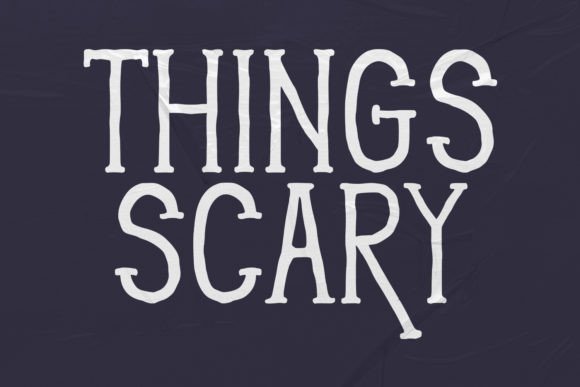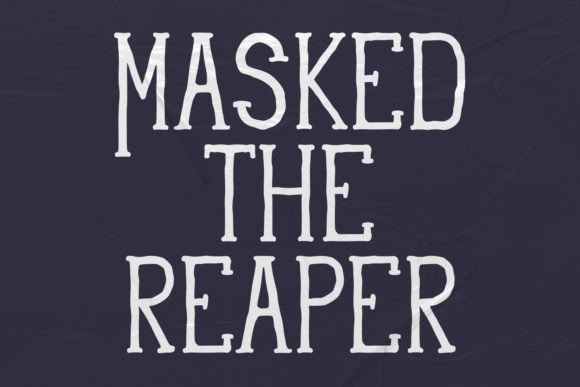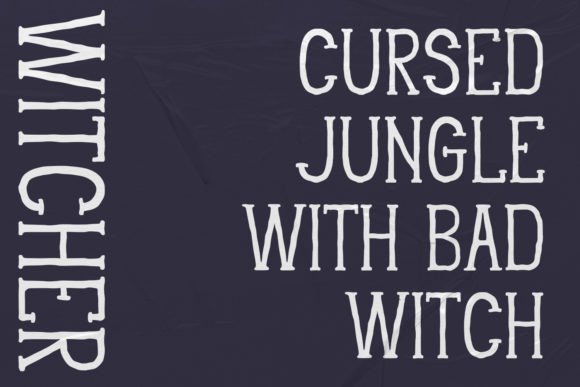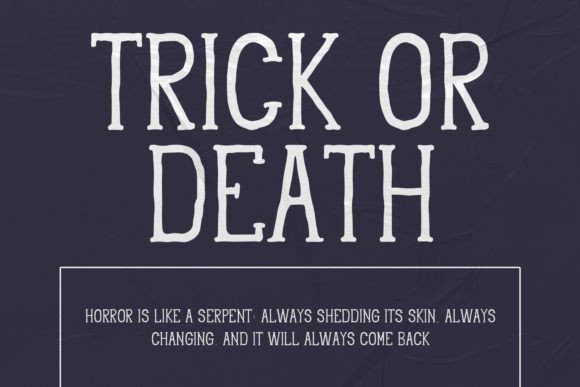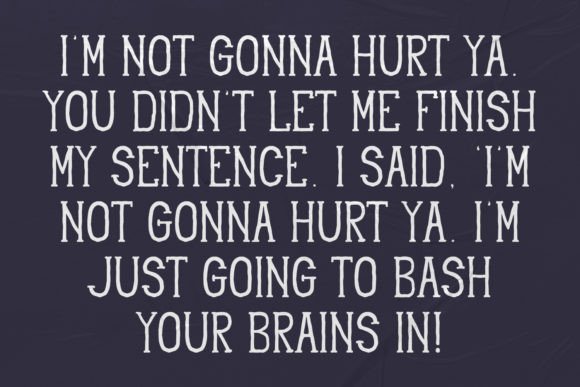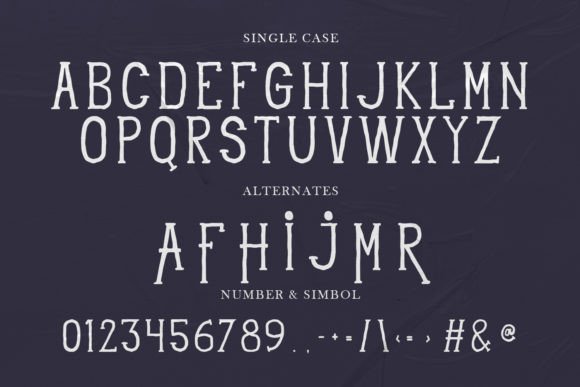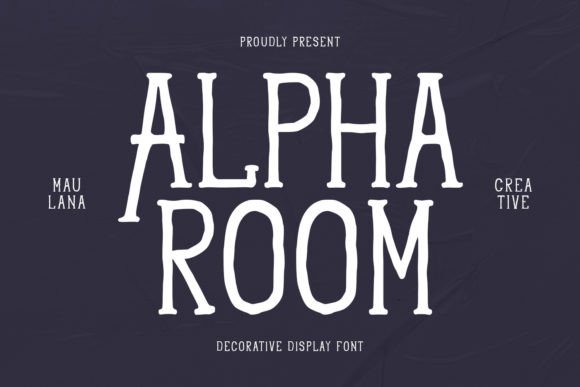
Introducing Alpha Room Font: Elevate Your Designs with a Touch of Elegance and Fun
In the world of typography, the right font can make all the difference in elevating your design from ordinary to extraordinary. For designers and crafters looking for a unique and versatile typeface, Alpha Room Font is an excellent choice. This decorative display font is not only visually appealing but also packed with features that make it perfect for a wide range of creative projects.
What Makes Alpha Room Font Stand Out?
Alpha Room Font boasts a bold stroke and fun character set, making it an instant eye-catcher. Its design is carefully crafted to add a touch of elegance and playfulness to any project. One of its standout features is the inclusion of ligatures and alternates, which provide you with extra creative options to make your work truly unique.
Multilingual Support for Global Creations
In today’s globalized world, design often knows no borders. Alpha Room Font understands this, offering support for over 100 languages. This extensive multilingual support ensures that you can create stunning designs that cater to a global audience, without worrying about language limitations.
Whether you’re working on a logo design, social media graphics, movie titles, book titles, or even lengthy text content, Alpha Room Font is up to the task. Its versatility shines through in its ability to make a significant impact whether used for short texts or longer passages. Additionally, it pairs beautifully with script or serif fonts, making it an excellent choice for secondary text fonts.
Applications of Alpha Room Font
• Logo Design: Create memorable and impactful logos that stand out.
• Social Media: Elevate your social media posts and stories with stylish text.
• Movie and Book Titles: Add a touch of glamour to your movie posters and book covers.
• Long Text and Short Text: Its readability and style make it suitable for both.
• Pairing with Script or Serif Fonts: Use it as a secondary font to add depth and contrast to your designs.
Why Choose Alpha Room Font?
Choosing Alpha Room Font for your projects comes with numerous benefits:
• Unique Style: Stand out with its bold and fun character set.
• Flexibility: Suitable for a wide range of projects from digital content to print materials.
• Multilingual Support: Reach a global audience without language constraints.
• Easy to Use: Incorporate it seamlessly into your designs, regardless of your preferred software.
Tips for Using Alpha Room Font
To get the most out of Alpha Room Font, consider the following tips:
• Experiment with Ligatures and Alternates: These features can add a unique touch to your text.
• Mix and Match: Don’t be afraid to pair Alpha Room Font with other fonts to create contrast and hierarchy in your designs.
• Play with Sizes and Colors: Its bold nature makes it perfect for headlines, but also experiment with it in smaller sizes for interesting text hierarchies.
Alpha Room Font is more than just a decorative display font; it’s a creative tool that can elevate your designs to new heights. With its bold stroke, fun character set, and extensive multilingual support, it’s perfect for designers and crafters looking to add a touch of elegance and playfulness to their projects. Whether you’re working on a logo, social media content, or book titles, Alpha Room Font is sure to make your work stand out. So, dive into the world of creative possibilities with Alpha Room Font and watch your designs come to life.